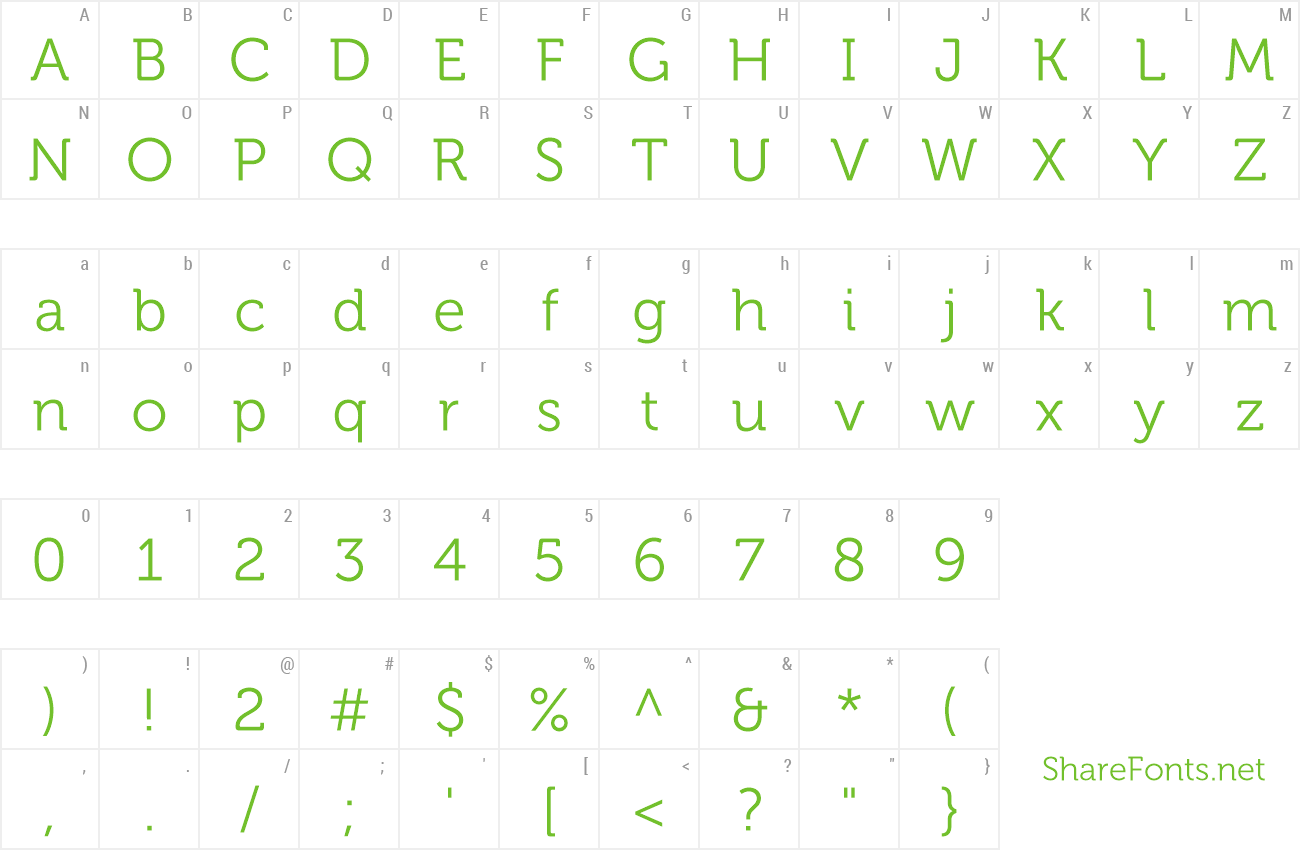
Download Museo Font Free - A serif typeface with 10 styles, available from adobe fonts for sync and. Web explore museo designed by jos buivenga at adobe fonts.
A serif typeface with 10 styles, available from adobe fonts for sync and. Web explore museo designed by jos buivenga at adobe fonts.
Web explore museo designed by jos buivenga at adobe fonts. A serif typeface with 10 styles, available from adobe fonts for sync and.
Web Explore Museo Designed By Jos Buivenga At Adobe Fonts.
A serif typeface with 10 styles, available from adobe fonts for sync and.